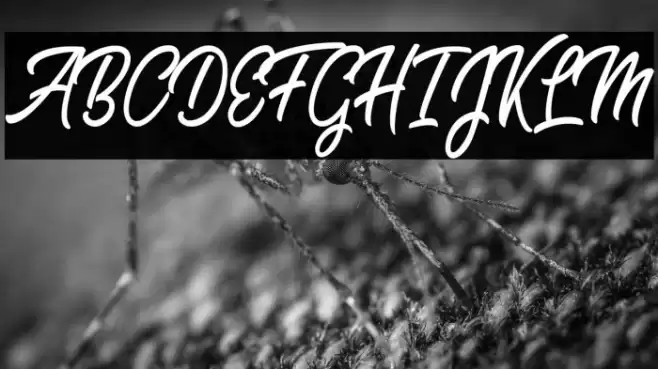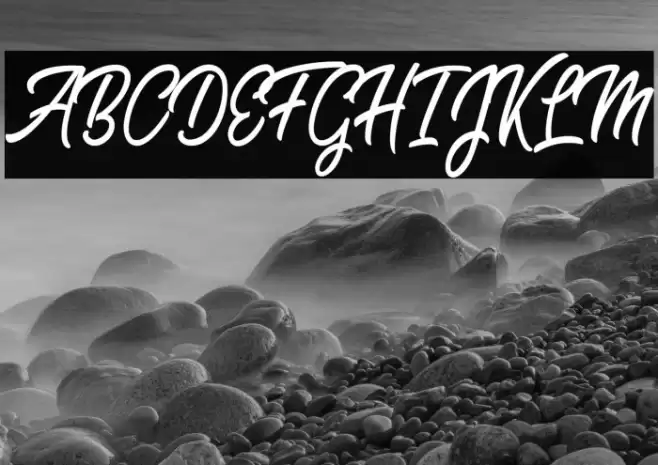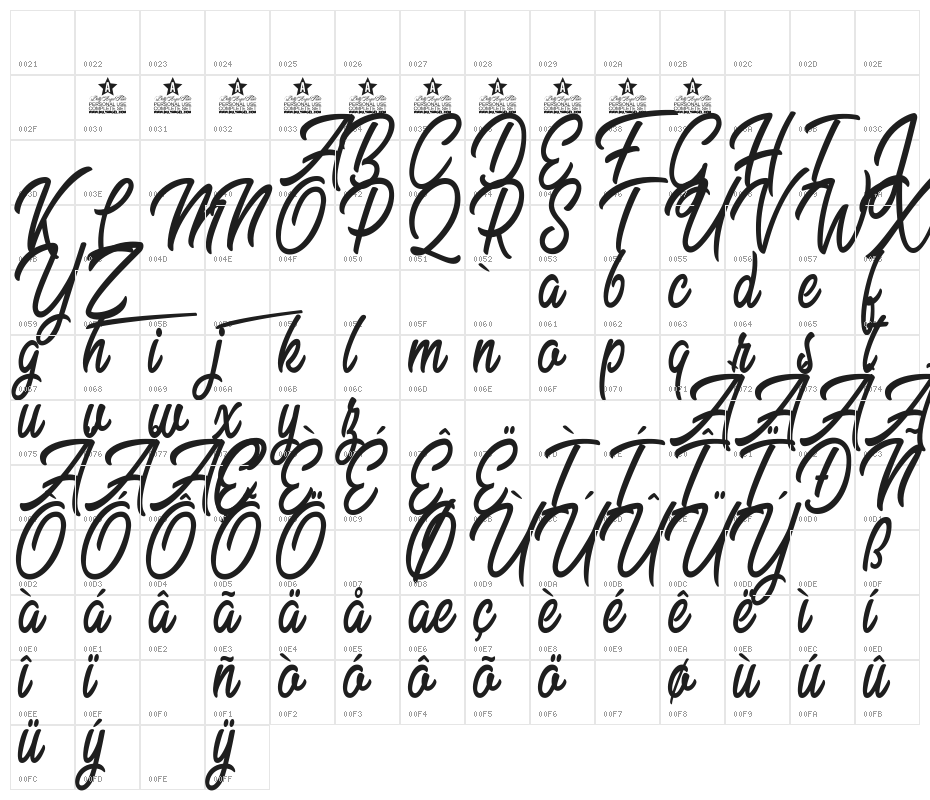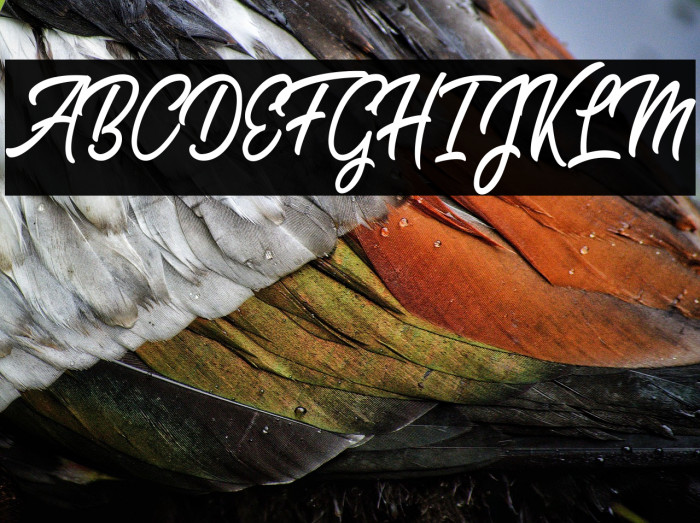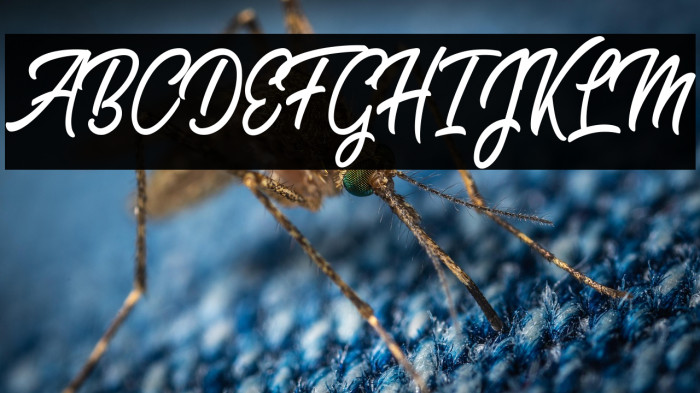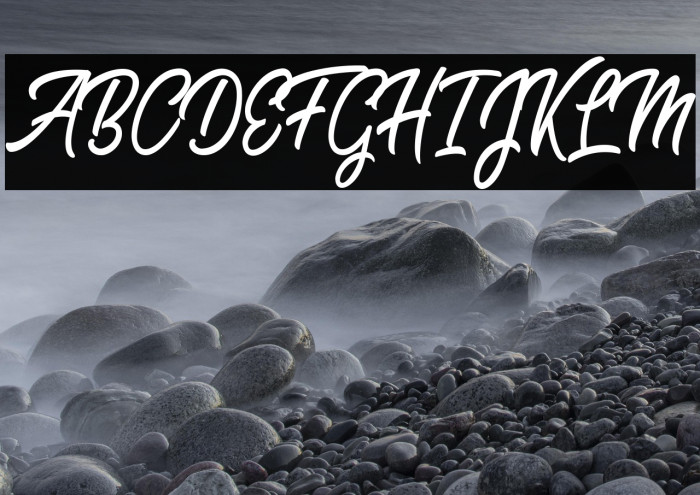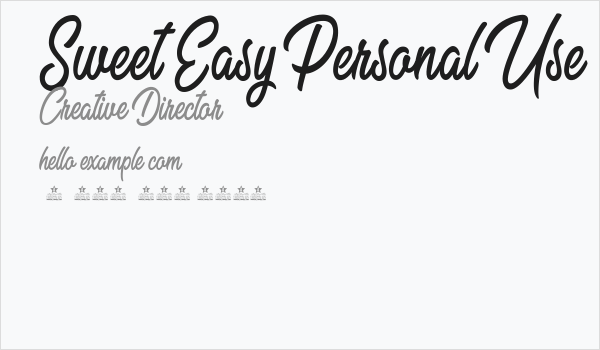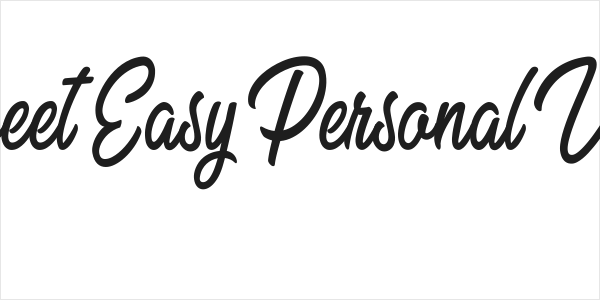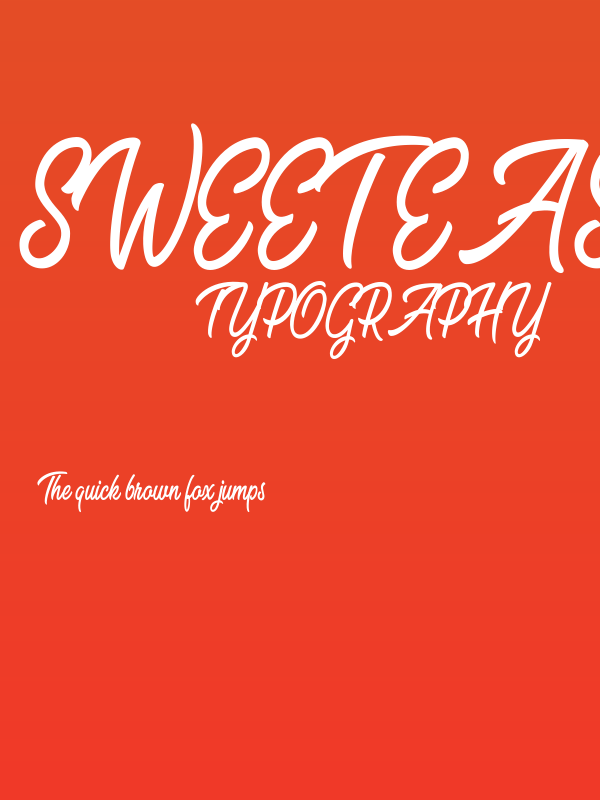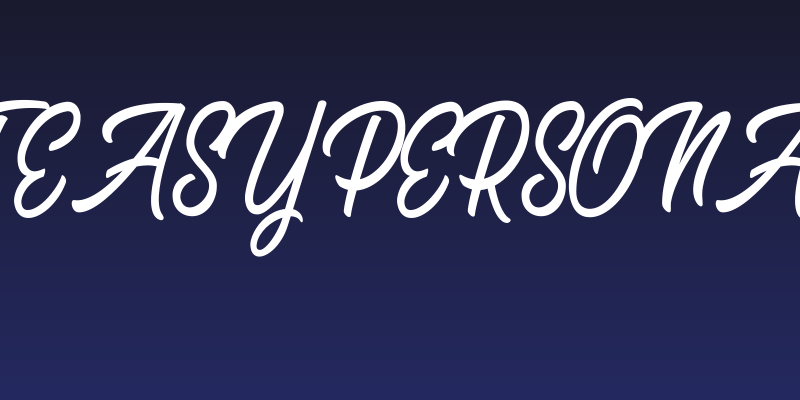
Sweet Easy Personal Use Font
Sweet Easy Personal Use Description
This font exhibits a flowing, cursive style with a modern twist. The characters are interconnected, creating a seamless and elegant appearance. The uppercase letters are bold and slightly slanted, adding a dynamic feel, while the lowercase letters maintain a consistent flow with rounded edges. The font has a playful yet sophisticated look, making it suitable for creative projects. The special characters are designed to match the overall aesthetic, ensuring cohesion across all text elements.
A modern, cursive font with interconnected, flowing characters from Uncategorized fonts.
- Font: Sweet Easy Personal Use
- Proposed Projects: Ideal for wedding invitations, greeting cards, branding, and logo design.
- Character Spacing: Tight
- Use Case: Logos, Headlines, Invitations